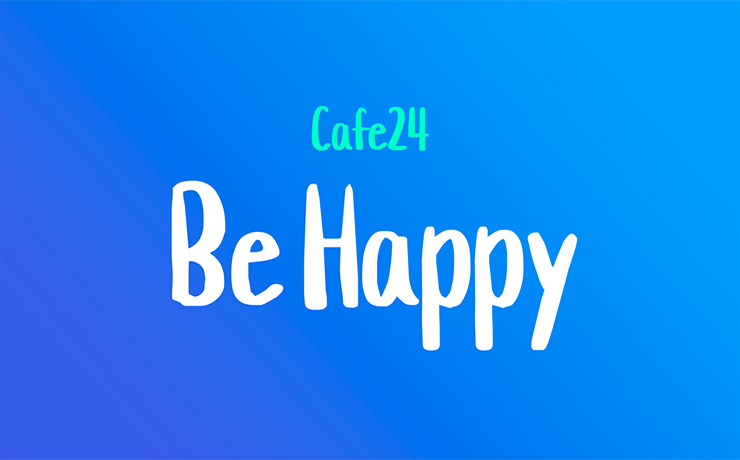
At first glance, you’ll notice how this font creates a calm and soothing feeling. Be Happy Font is perfect for crafting titles for designs like picture books, social media posters, and more.
The whole structure is made with bold and clear strokes with the designer adding an irregular baseline. This irregular baseline is added manually because all the characters are handmade.
And make round corners to make this fancy font sweet and cool. So, if you have a project, you can also take advantage of it.
In addition, it retains its sweetness and is a great choice for cartoons and comics.
This font is ideal for comic covers, cartoon posters, game graphics, product designs, product packaging, t-shirt printing, special cards, sweet quotes, shopping bags, etc.